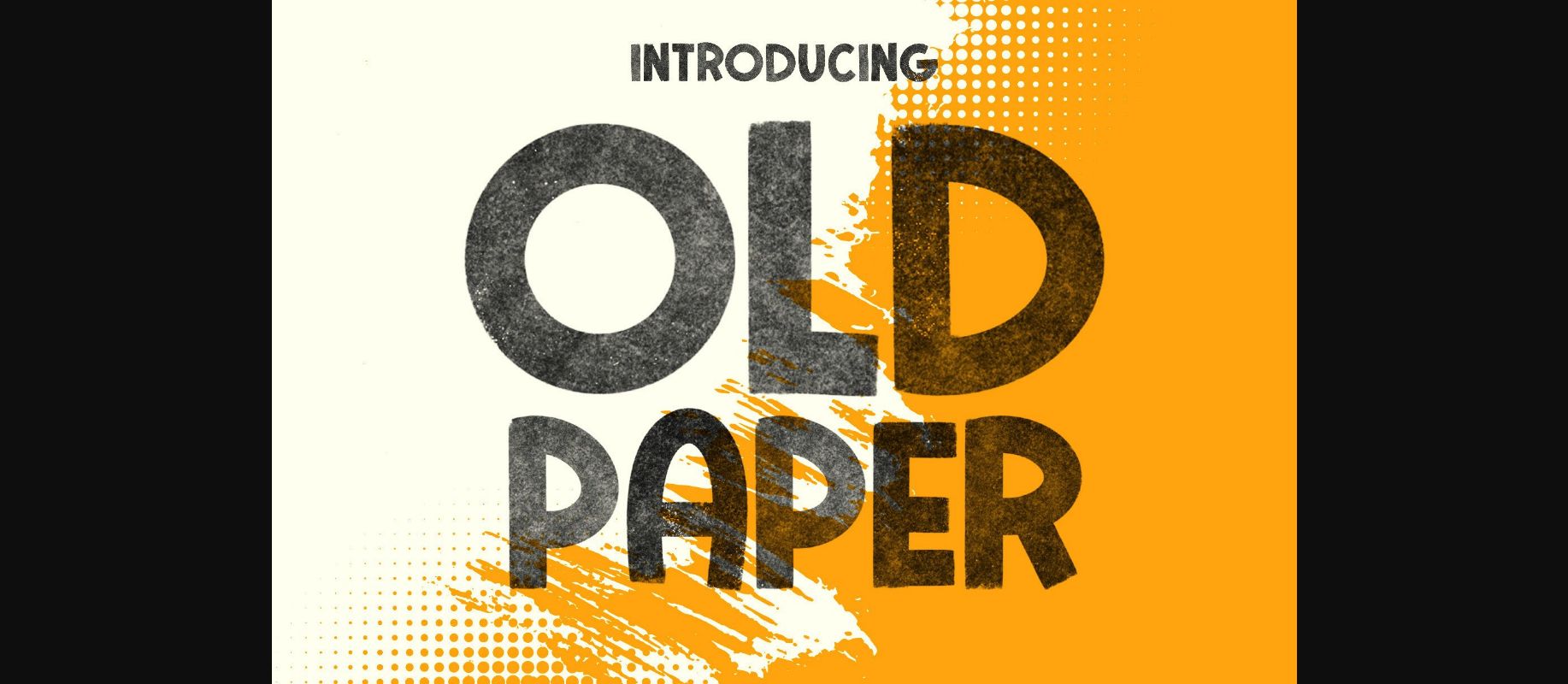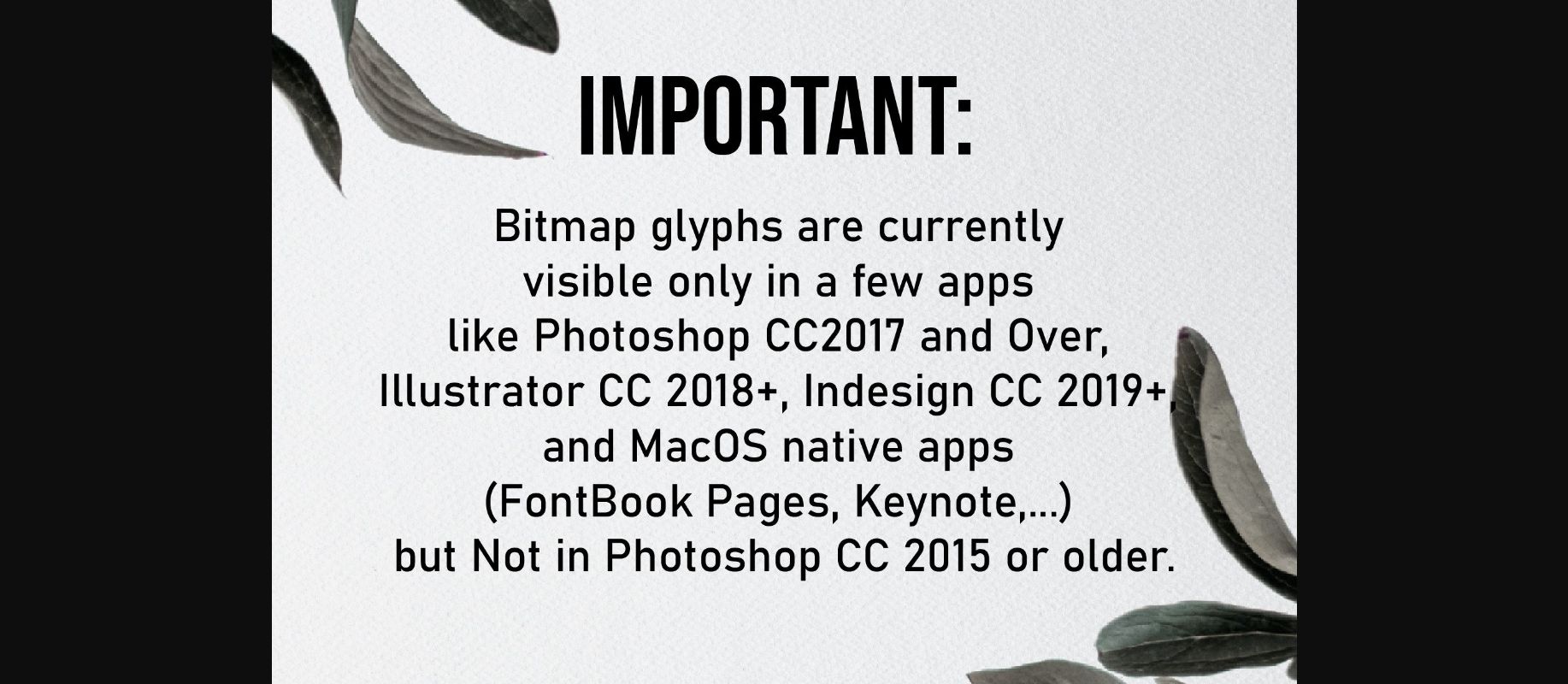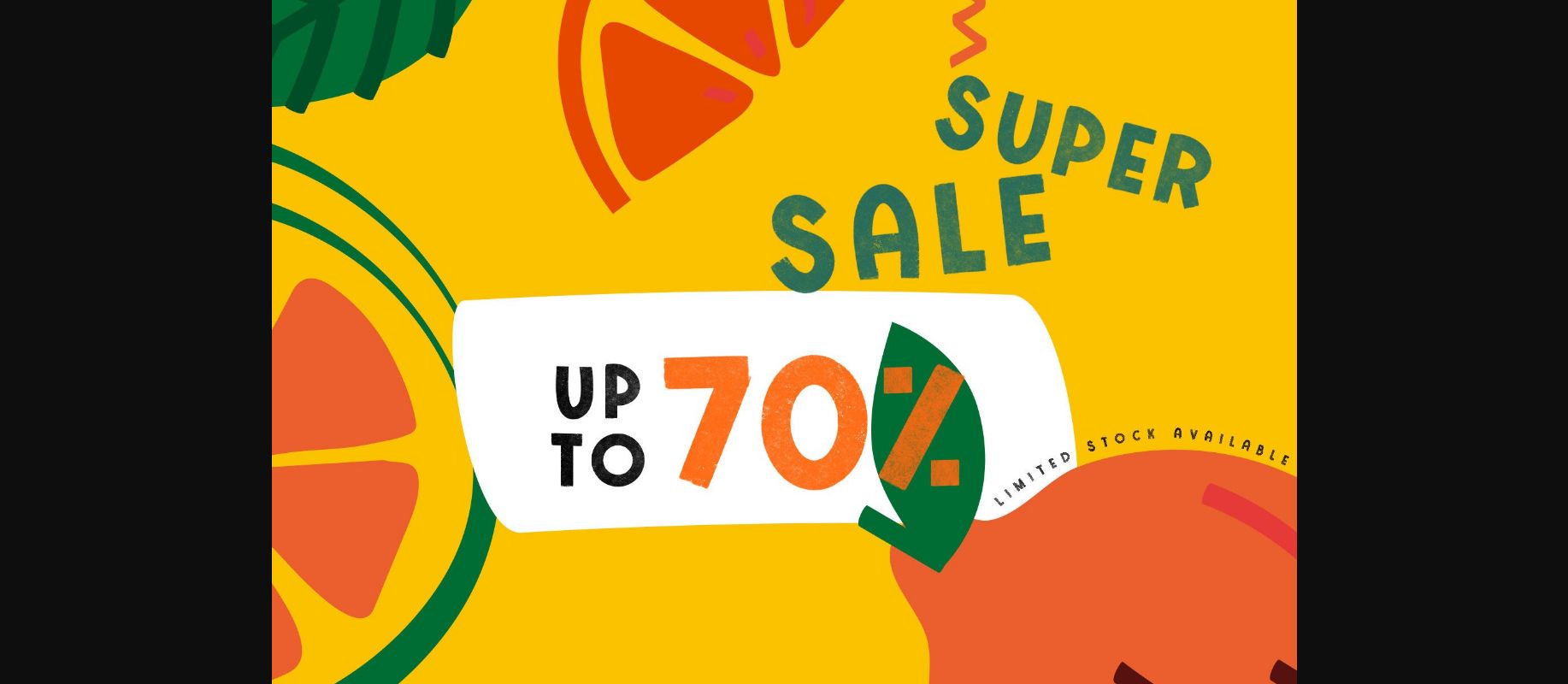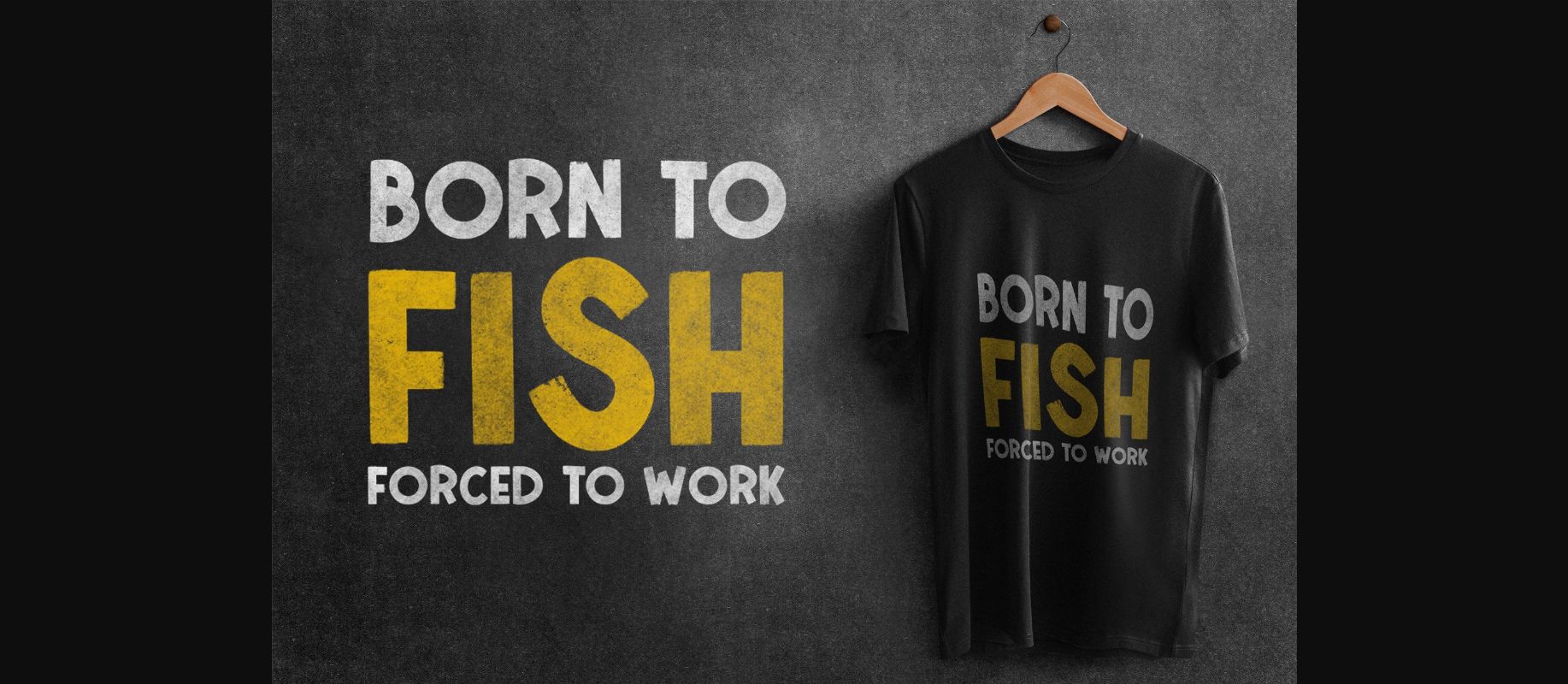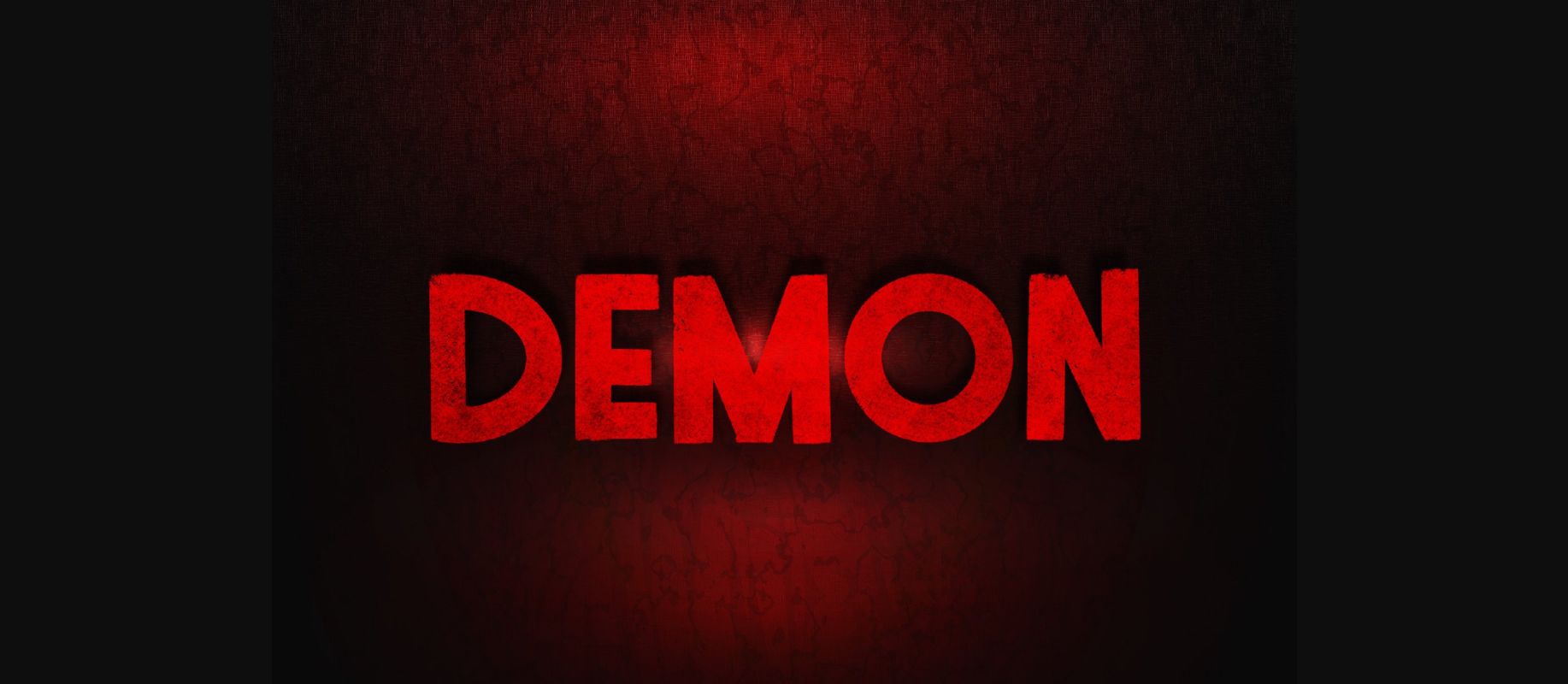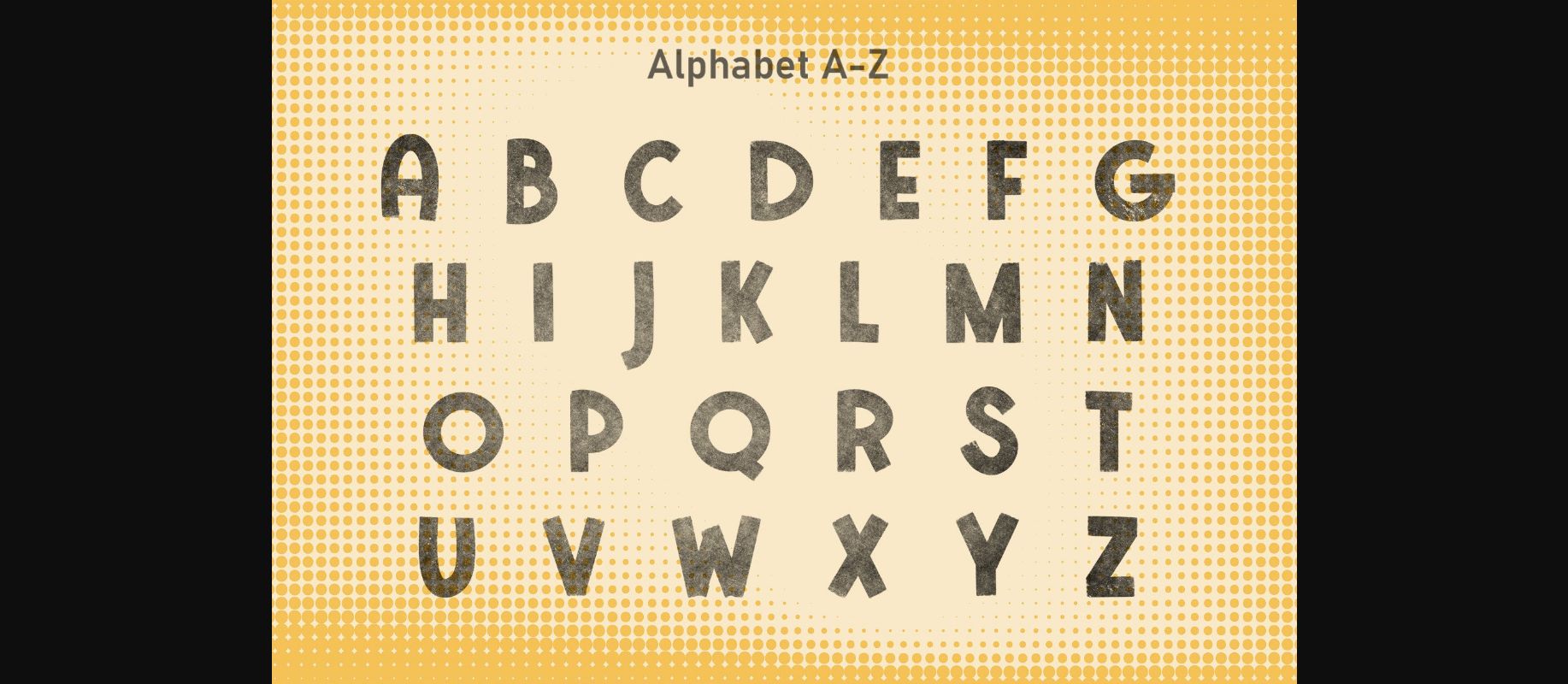
About Old Paper Font
Old Paper is a handwritten Bitmap font. If enabled in Photoshop, you will be able to see the details of the brushes that are best used for writing. Add this beautiful display font to each of your creative ideas, and notice how it makes them stand out!